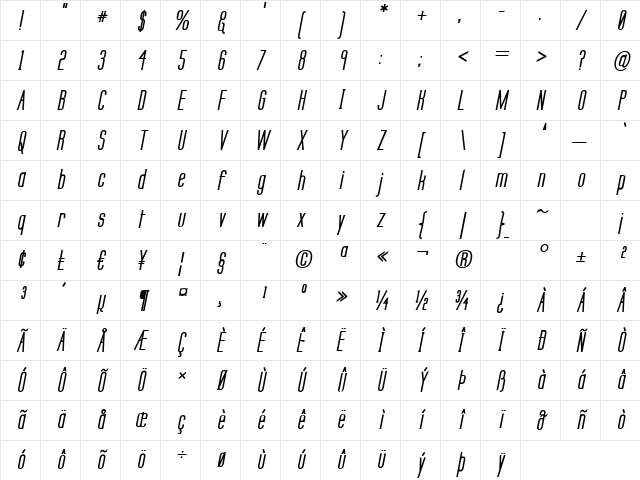
Labtop Secundo Bold Italic
Design Context for Labtop Secundo
Labtop Secundo is a composed and adaptable typeface that performs quietly and consistently across a wide range of design contexts. The slanted form adds forward momentum and visual energy. Its bold stroke weight gives it real presence on the page.
Pro Tip: Use Labtop Secundo for emphasis, pull quotes, and subheadings where its slanted energy can add rhythm to the layout.